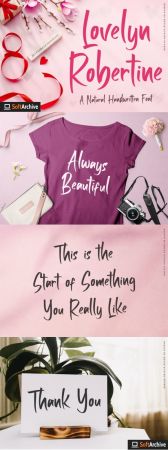
Lovelyn Robertine is a cute handwritten font. It features an incredibly classic style, while still keeping a friendly feel. Lovelyn Robertine is the perfect font for making original and outstanding designs.